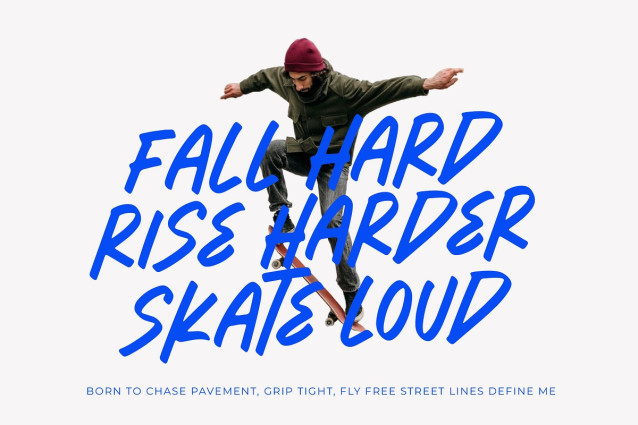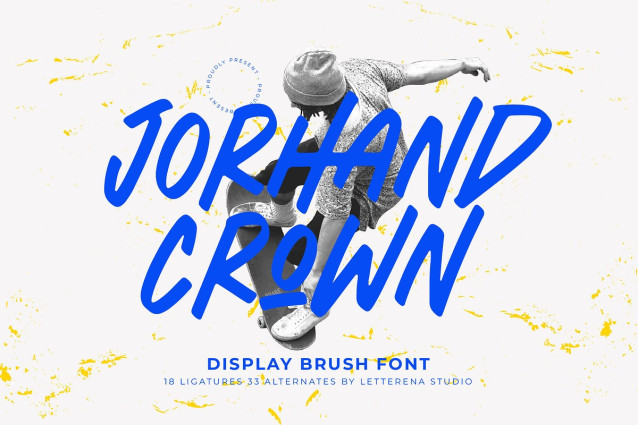
Jorhand Crown Script Font
Jorhand Crown Script Font is a bold display brush font crafted with energetic strokes and a raw street-style attitude. Its sharp, confident brush movements make it perfect for urban branding, sports posters, youth apparel, music covers, skate culture visuals, and any project that needs a powerful, rebellious handwritten look. With 18 ligatures and 33 alternates, this font gives you flexibility to create dynamic, expressive typography that instantly grabs attention and amplifies your design’s impact.